When you want designs steeped in past‑era charm, the right retro and vintage lettering sets the mood in seconds—ideal for branding, invitations, packaging, posters, and social posts. This handpicked guide delivers concise style cues, practical use ideas, and clear software support, so you can zero in on the right throwback face and drop it into Adobe, Affinity, Office, Canva, Cricut, or Silhouette without fuss.
1. Twilight Vintage Handwritten Script Font
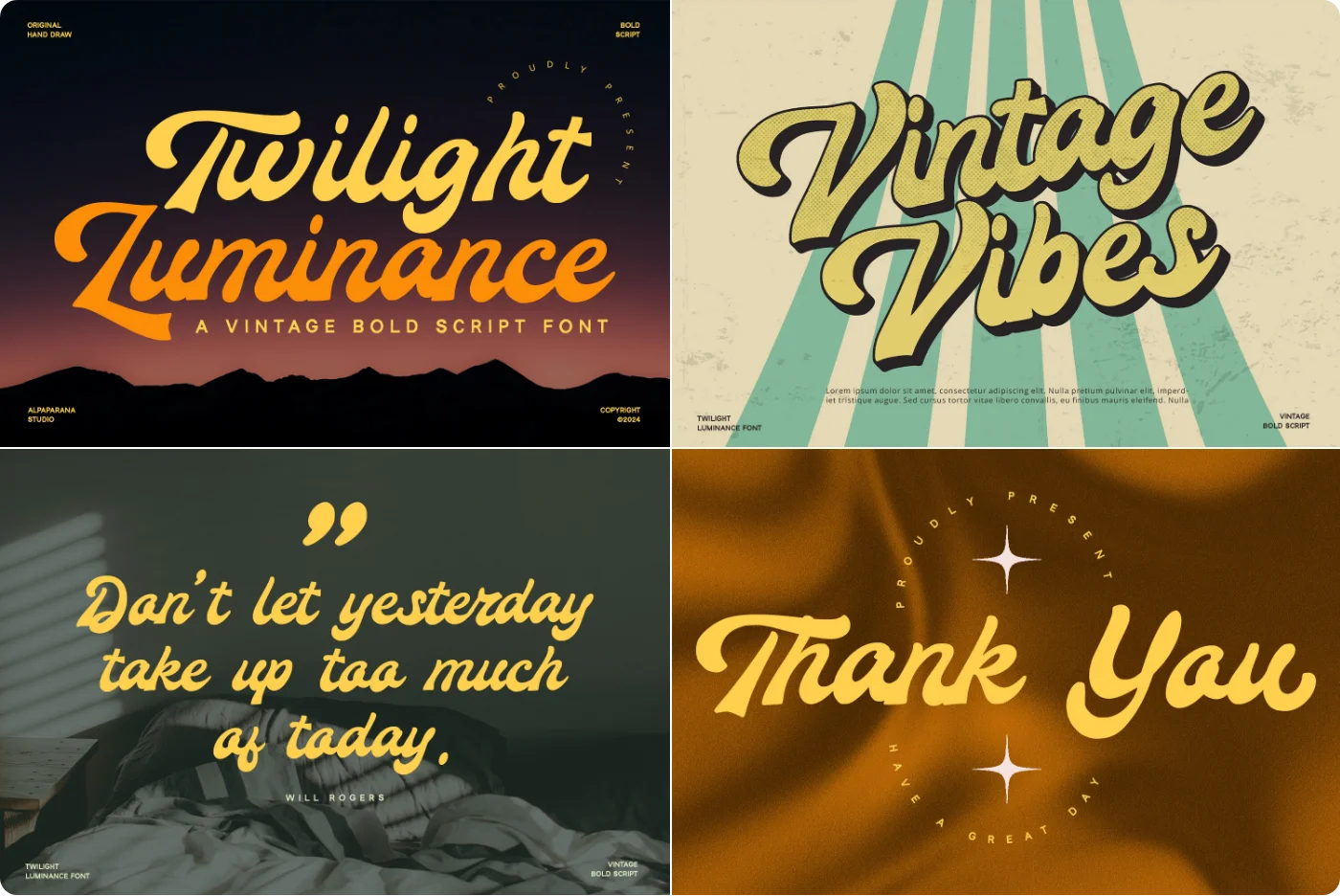
A nostalgic, vintage handwritten script with elegant curves and gentle strokes—ideal for refined, timeless designs.
- Style/mood: vintage, warm, graceful, and sophisticated handwritten script.
- Ideal uses: wedding invitations, logos/branding, packaging, stationery, quotes, and retro/vintage-themed graphics.
- OpenType features: common ligatures and stylistic alternates (access via OpenType-enabled apps or system character map).
2. Monalibra Handwritten Script Font
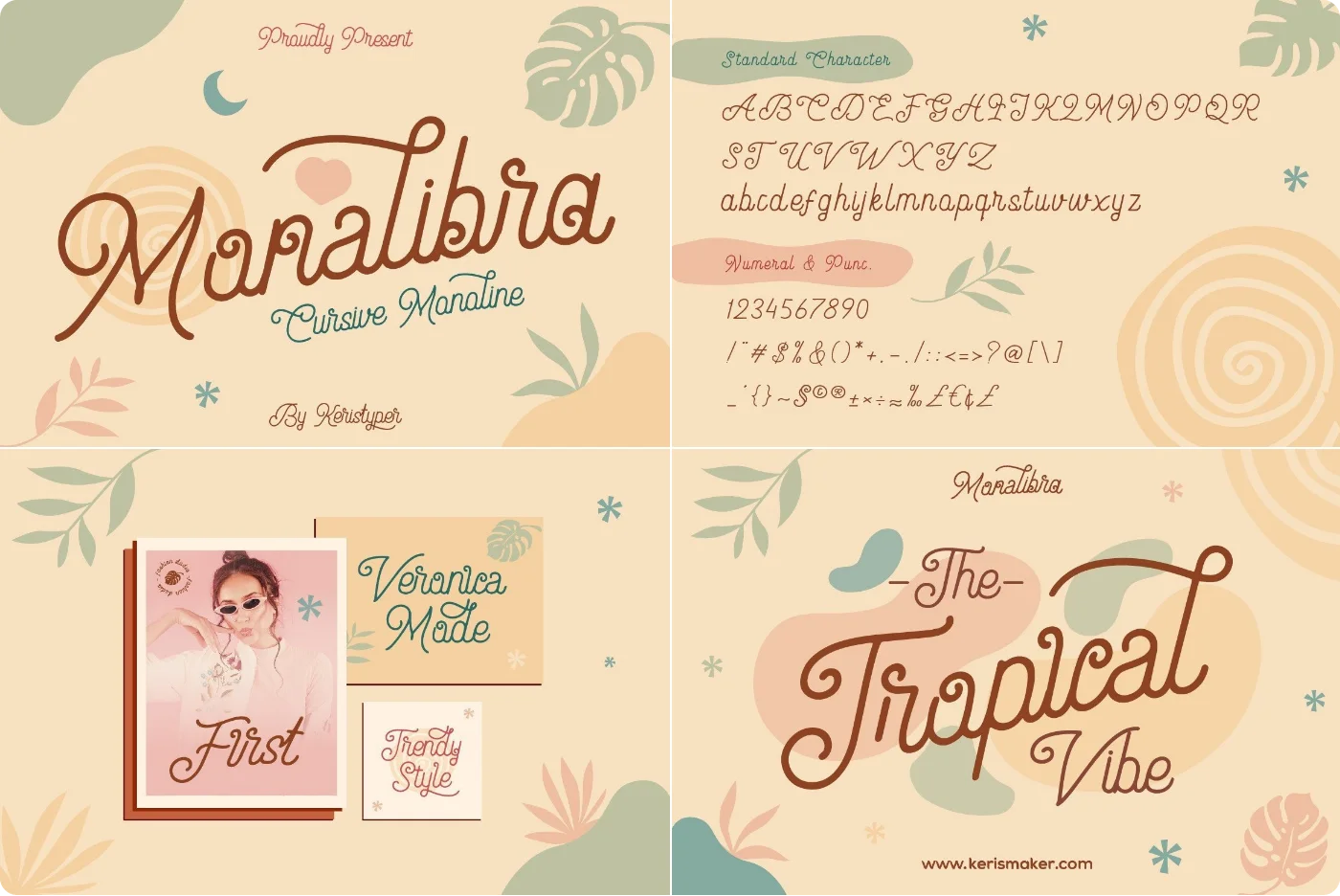
Elegant, vintage handwritten script with a refined, nostalgic tone—ideal for standout branding and titles.
- Style/mood: Elegant, vintage handwritten script with smooth, flowing strokes.
- Best for: Logos, social media graphics, movie titles, book covers, packaging, invitations.
- OpenType features: Alternates/ligatures not listed; assume minimal features unless noted by the vendor.
3. Sunbeam Handwritten Sans Serif Font
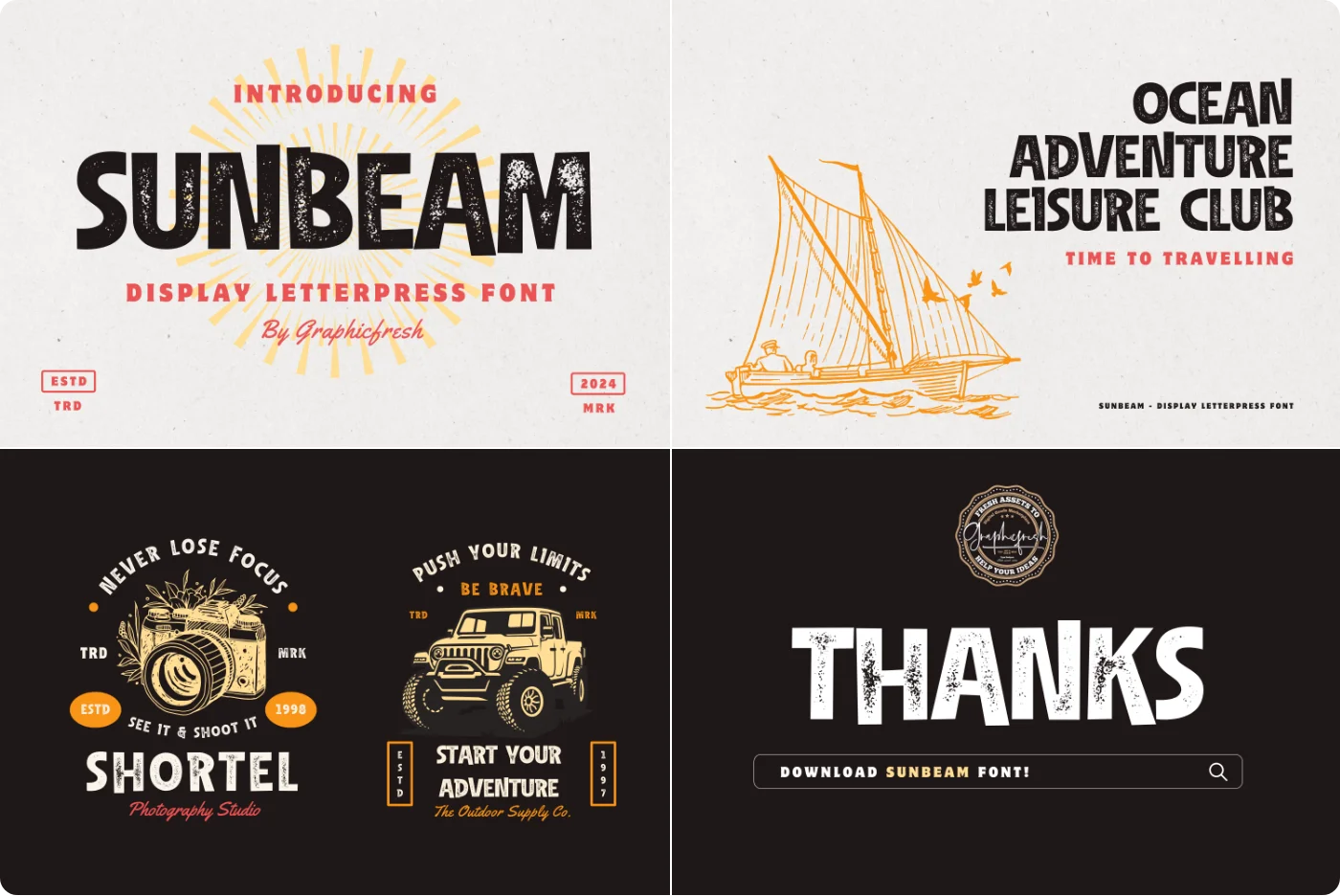
Sunbeam is a vintage-inspired handwritten sans display that blends clean lines with letterpress warmth—perfect for headlines that need personality and readability.
- Style/mood: Clean sans with hand-drawn character; vintage/letterpress vibe; friendly yet bold for display use.
- Best for: Headlines, signage, logos/branding, posters, packaging, and social media graphics (digital and print).
- OpenType features: Kerning for balanced spacing; features availability varies by app (Cricut/Silhouette use basic glyphs only).
4. Kaliya Retro Script Font
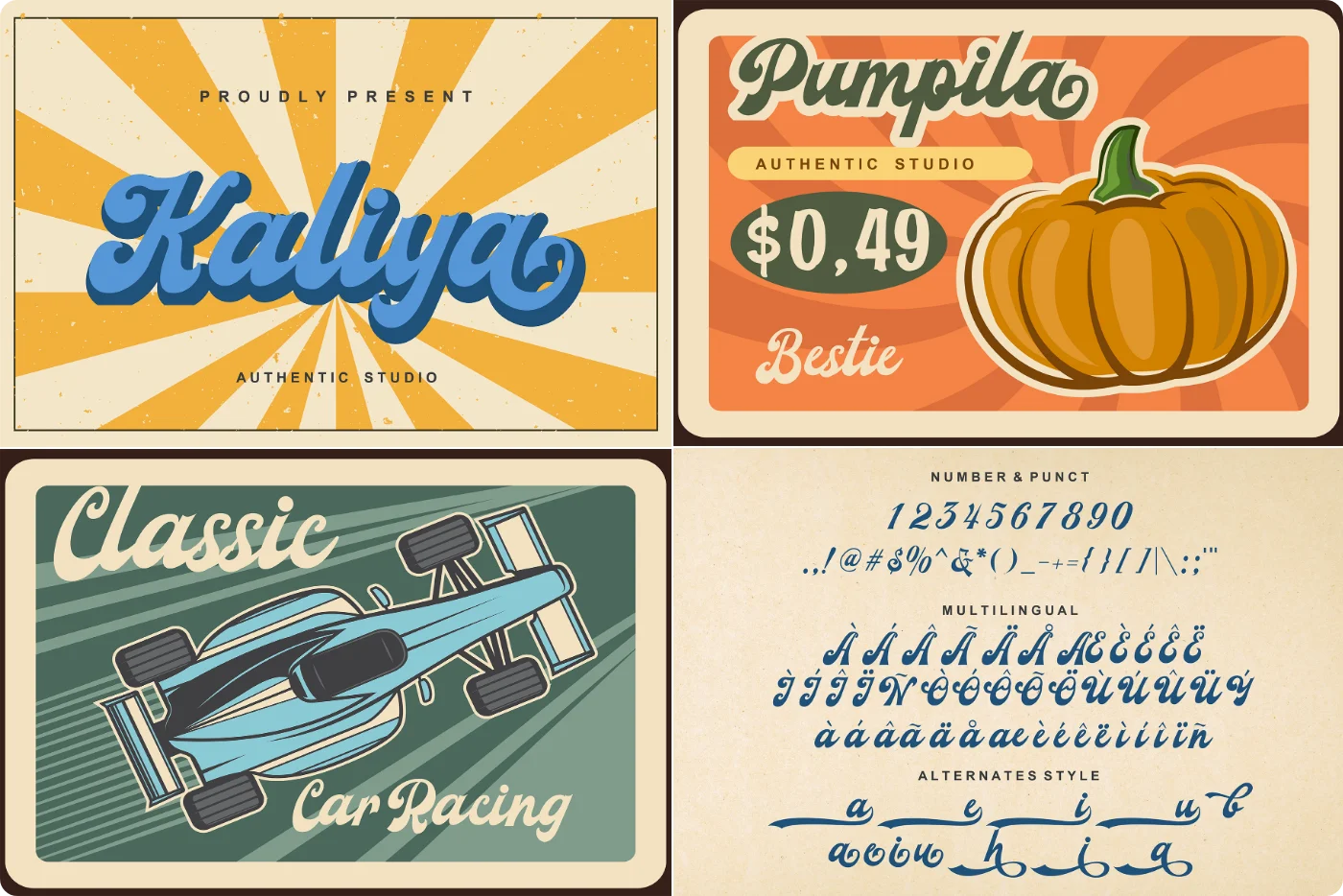
A confident retro-cursive script with dynamic strokes—perfect for nostalgic branding and standout headlines.
- Style/mood: retro, cursive, handwritten; strong, confident, dynamic.
- Ideal uses: logos and wordmarks, headlines, packaging, posters, apparel, and social media graphics.
- OpenType features: standard ligatures and stylistic alternates for a natural handwritten flow (accessible in OpenType-capable apps or via glyph panels/character maps).
5. Retern Handwritten Display Font
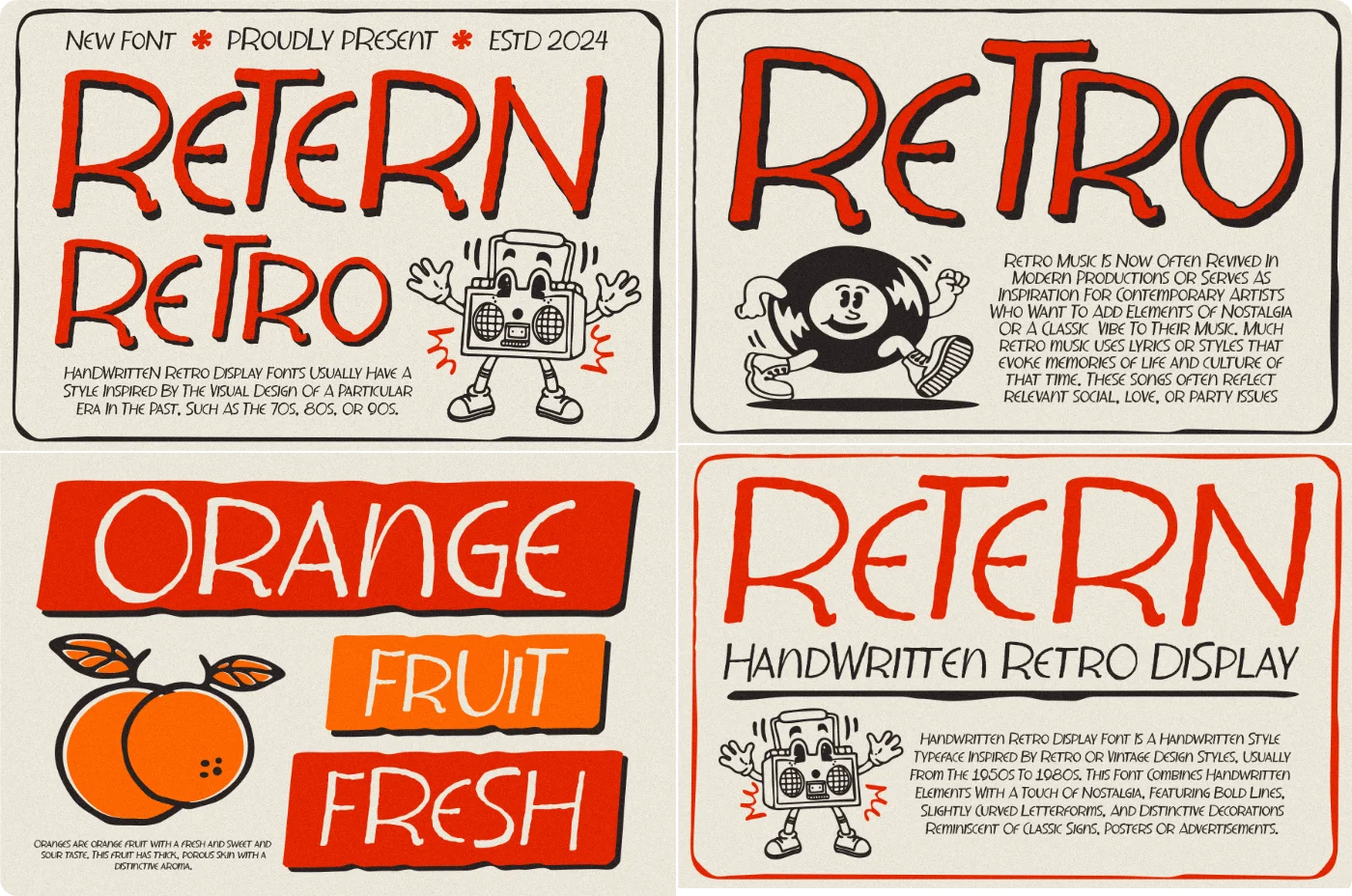
Retern is a handwritten retro display font that delivers a clean, contemporary vibe with simple, eye-catching character—ideal for bold, modern visuals.
- Style/mood: Handwritten retro display; clean, professional, contemporary, and striking.
- Best for: Logos, headlines, posters, packaging, social graphics, and modern branding.
- OpenType features: many ligatures and stylistic alternates for realistic handwriting; features require OpenType‑aware apps (Cricut/Silhouette show default glyphs; use a glyphs panel in supported software to access alternates).